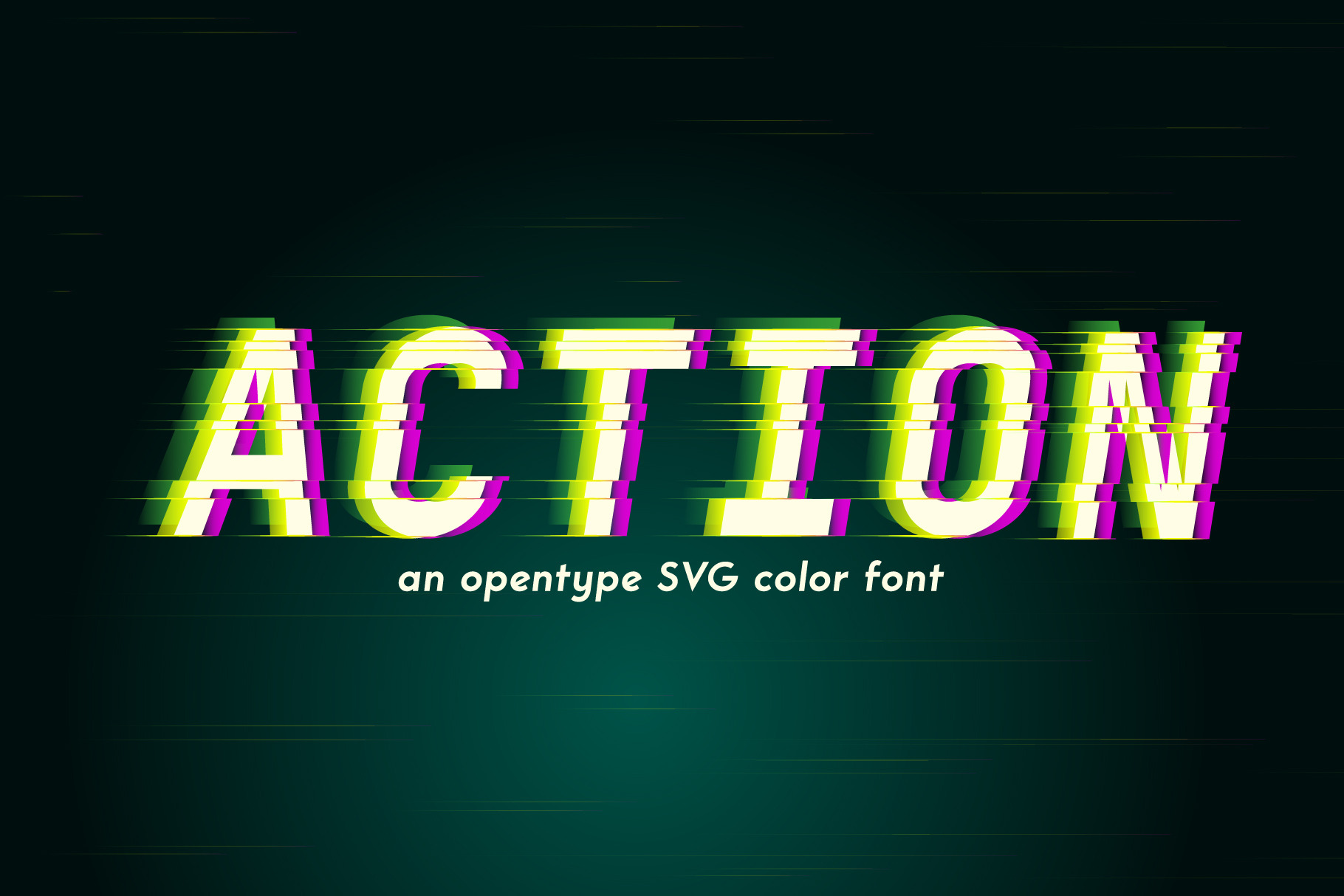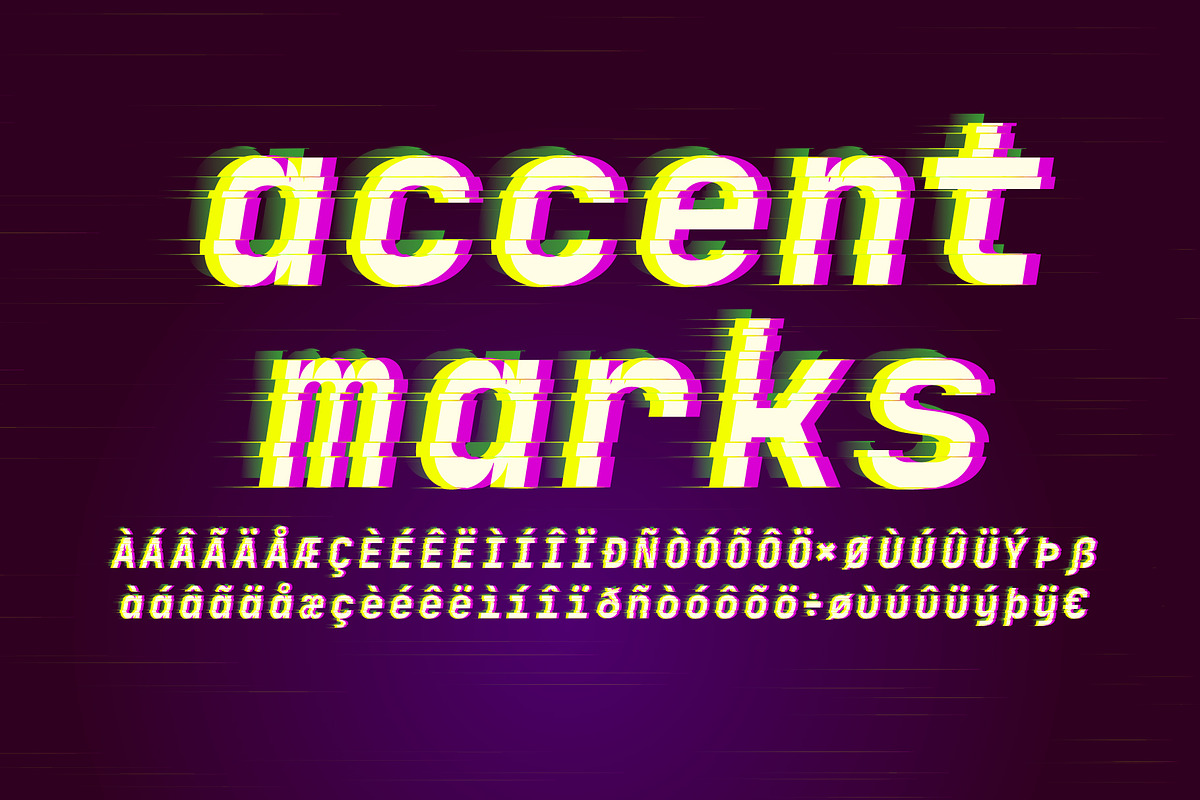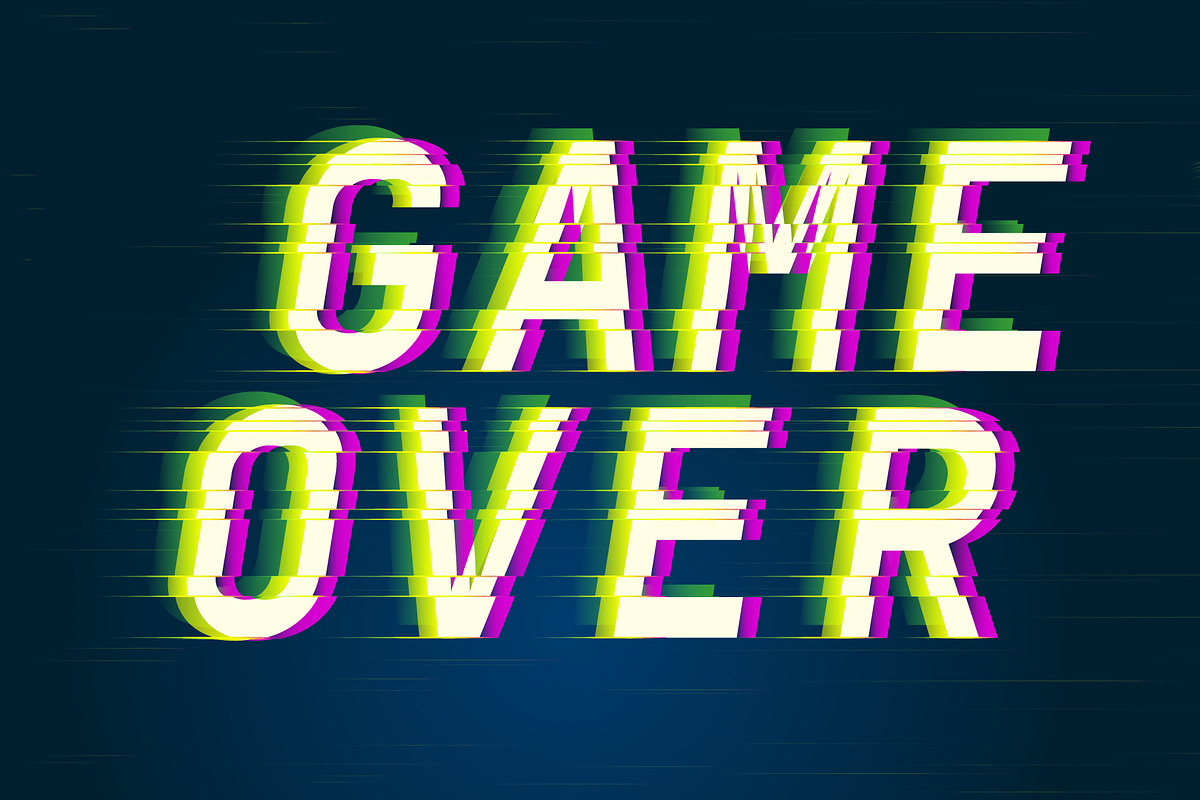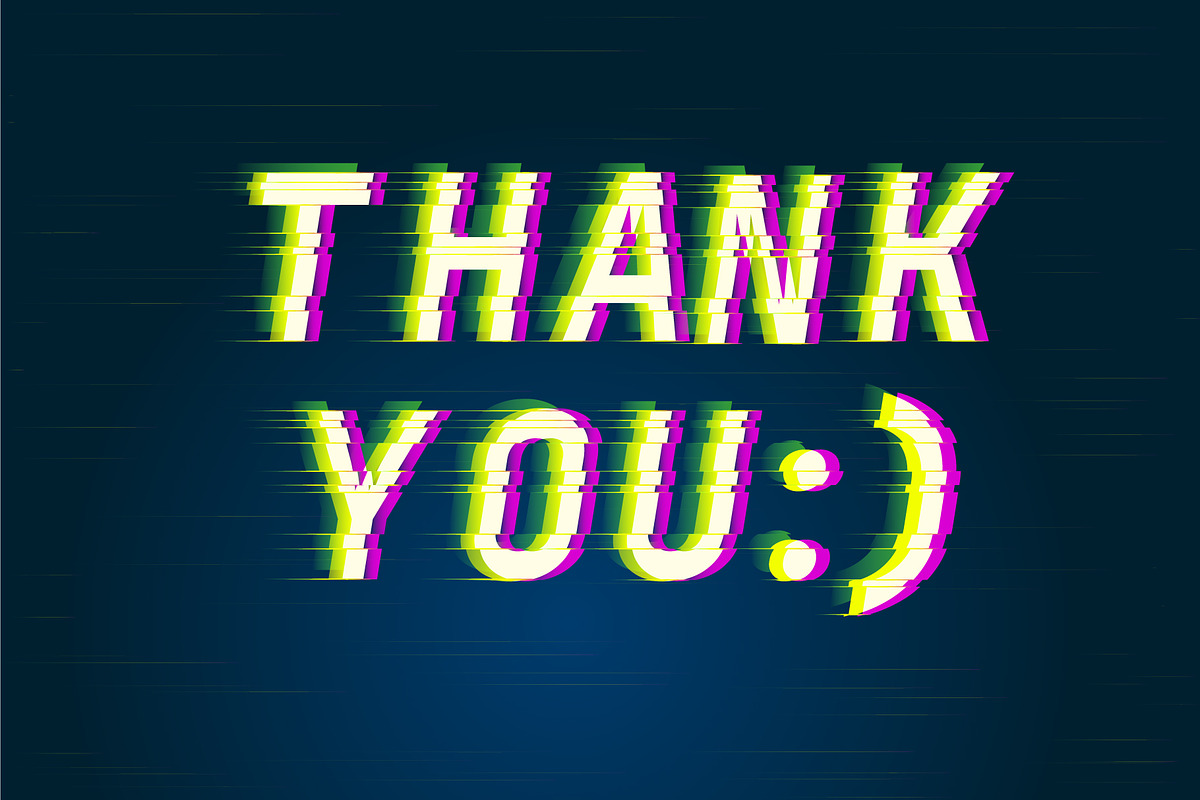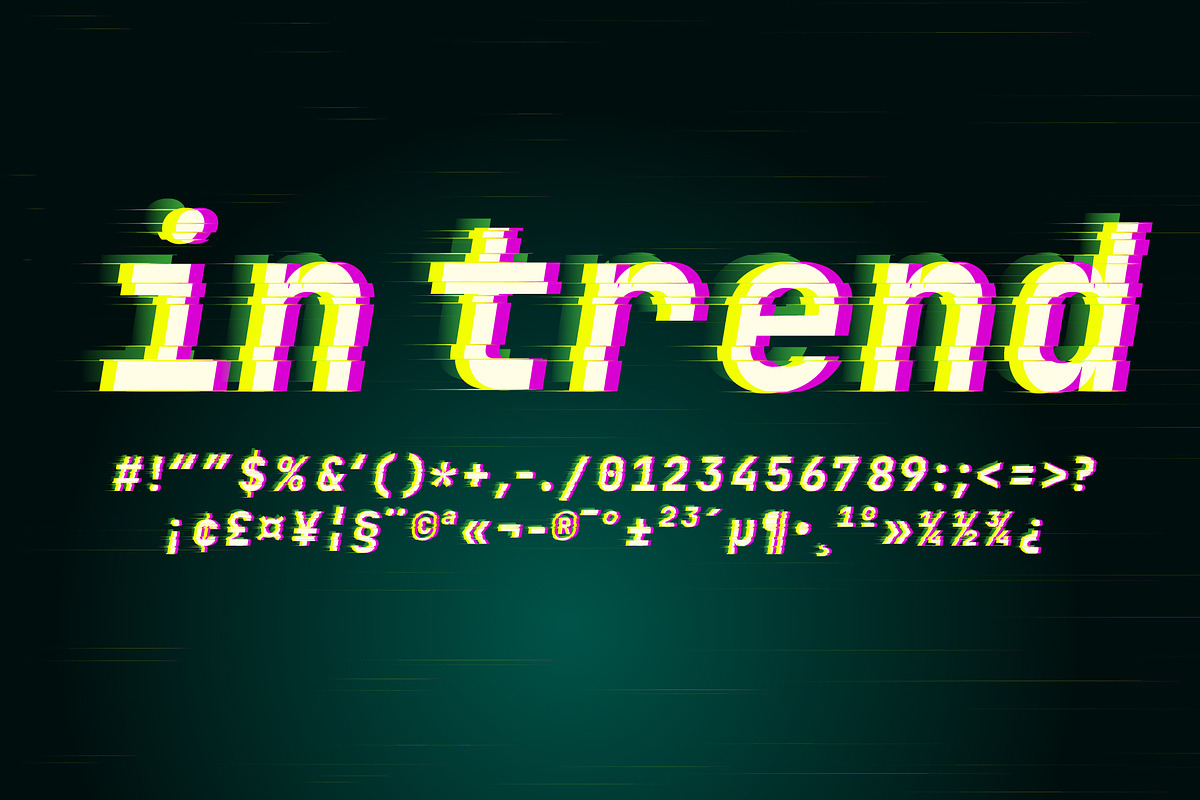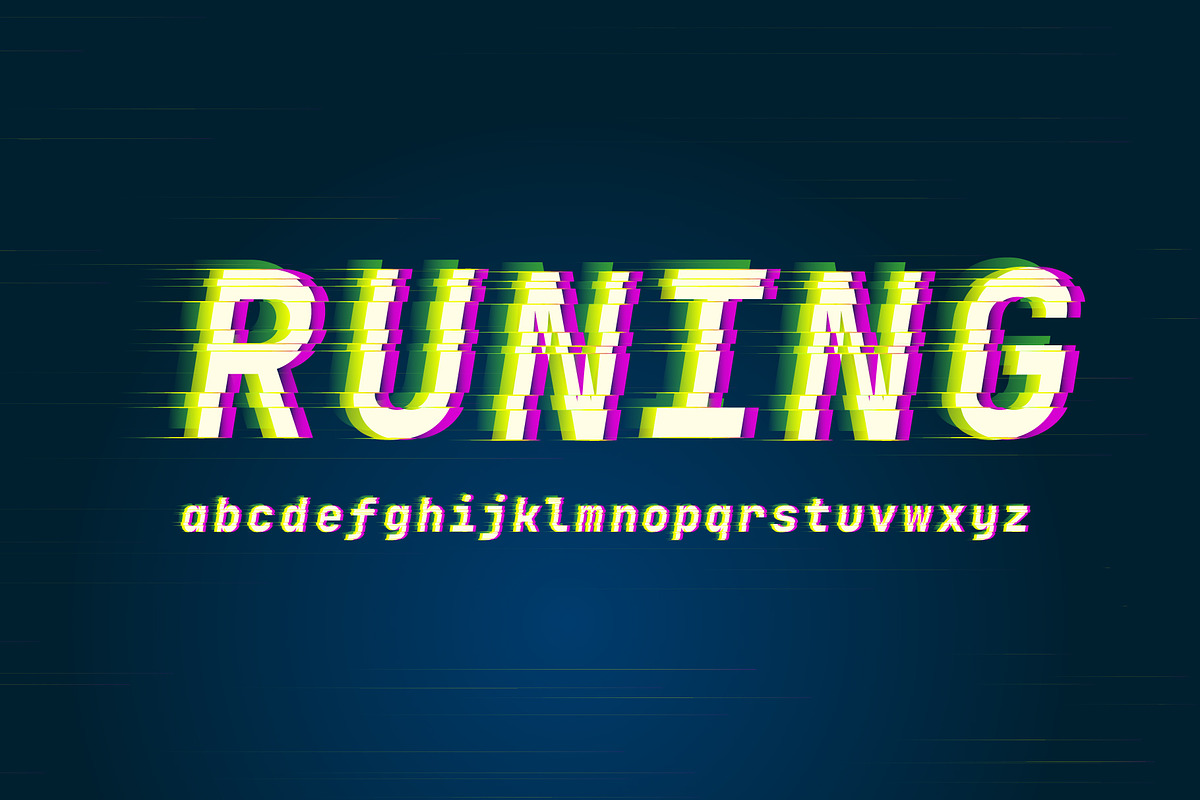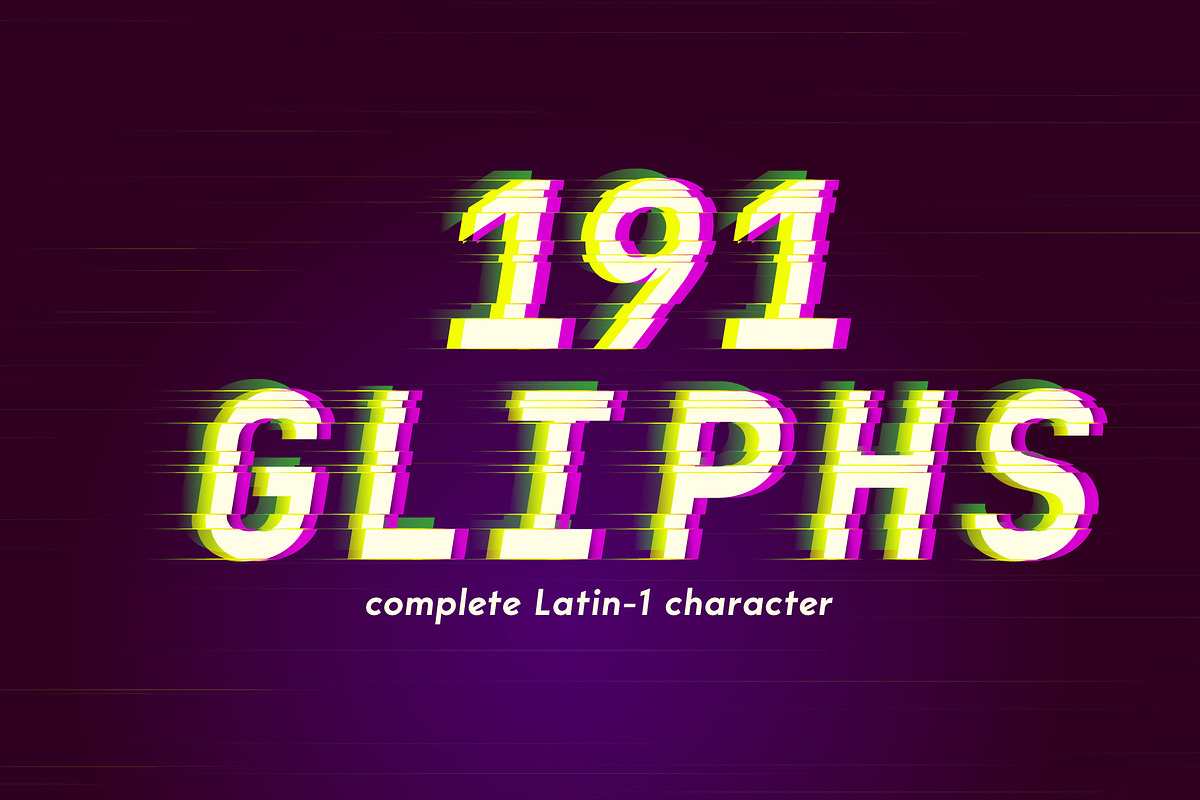
Action –an opentype SVG color font
Modern display colorful grotesque sans-serif font. By creating Action colorful font I was inspired by trending direction in graphic design - glitch style. It’s a stunning geometric display colorful font, perfect for completely contemporary designs that need a color block appeal. This gorgeous font comes in both OTF and TTF file types, making this color font versatile enough to suit all your design needs. It works best for logotypes, signage and advertising, modern typography posters and design t-shirt, greeting card and web, and other
With multicolor OTF font, you can type multicolor text. In earlier versions of Photoshop and Illustrator, as well as office applications, the font will be displayed in black and white and you can type black color text, like most other fonts on your system Bonus: Colorful vector alphabet, numerals and punctuations. With multicolor Vector alphabet, you can manipulate letters in form of vector shapes in Illustrator i.e.